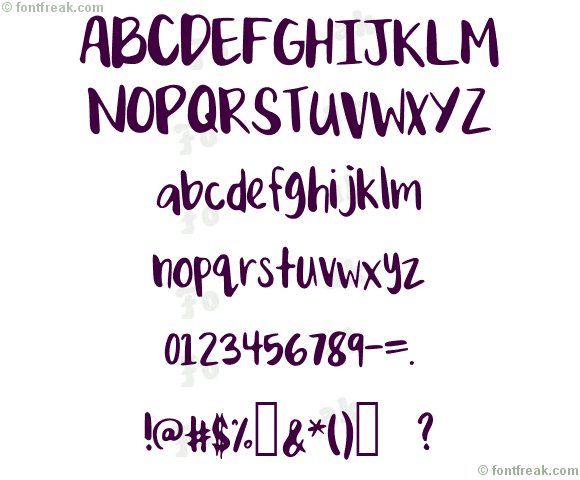
MixQuixotic
MixQuixotic, crafted by Mikko Sumulong, is a delightful display font that exudes a playful and whimsical charm. This typeface combines a handwritten style with unique decorative elements, making it perfect for a variety of creative applications. With its varied stroke weights and charming irregularities, the MixQuixotic font captivates the eye while maintaining readability, an essential characteristic for any effective typeface.
Visually, MixQuixotic features a dynamic contrast between thick and thin strokes, giving it an energetic feel. The letters are spaced with a generous amount of breathing room, allowing for easy legibility even in longer texts. The playful curves and loops add a touch of creativity that can elevate any design project. This font is particularly well-suited for use in wedding invitations, where its charming aesthetic can set a romantic tone. Additionally, it shines in branding materials for small businesses, especially those in the creative or food industries, such as restaurant menus and artisanal product labels. MixQuixotic is also a great choice for eye-catching movie posters or promotional materials that aim to convey a fun and inviting atmosphere.
The target audience for this font includes graphic designers, small business owners, and content creators looking to add a distinctive flair to their projects. Whether you're designing for print or digital media, MixQuixotic brings a unique personality that can make your work stand out.